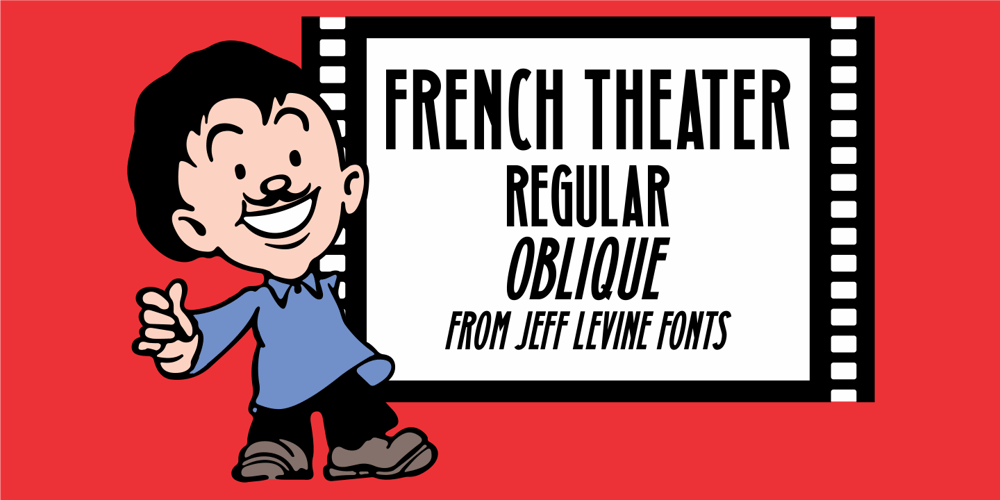
French Theater JNL
French Theater JNL font
French Theater JNL Font Family was designed by Jeff Levine and published by Jeff Levine. French Theater JNL contains 2 styles and family package options. Various ads in 1919 editions of the French film magazine “Le Courrier Cinématographique” (“The Film Mail”) utilize a condensed Art Nouveuau sans serif typeface.This is now available as French Theater JNL in both regular and oblique versions.